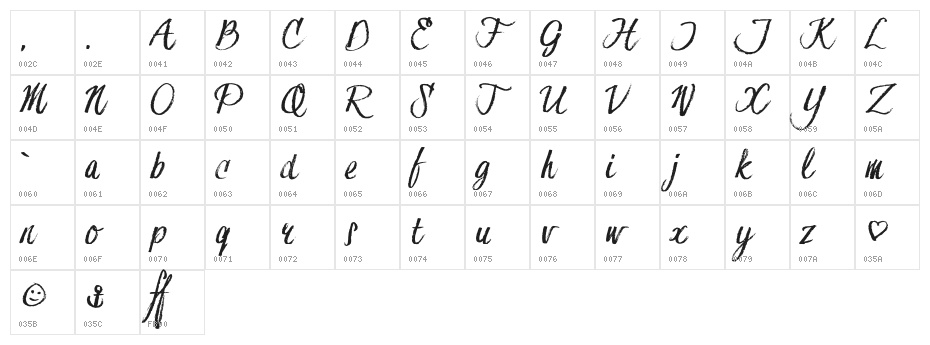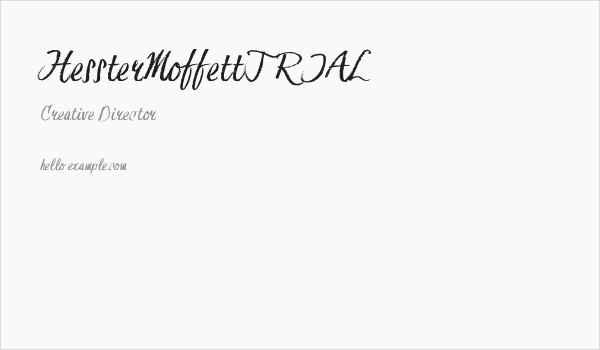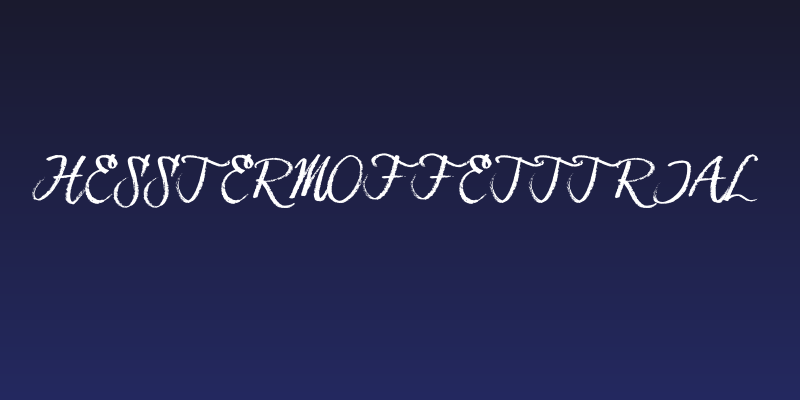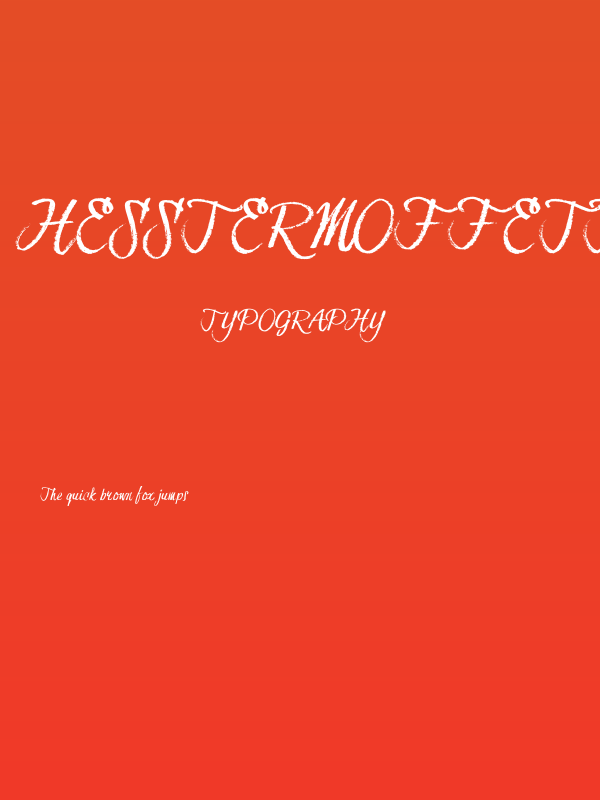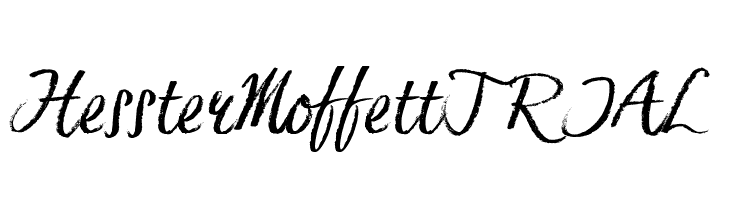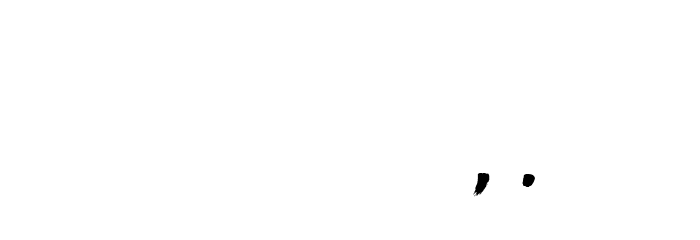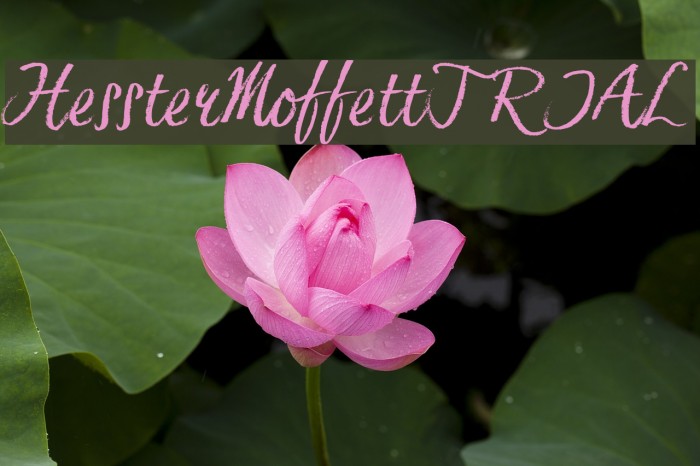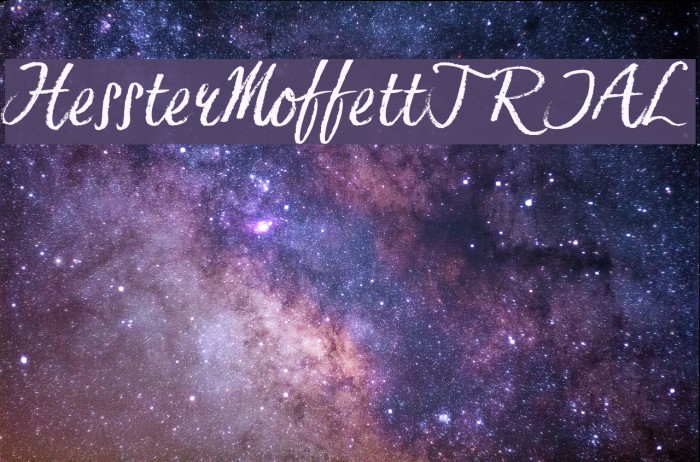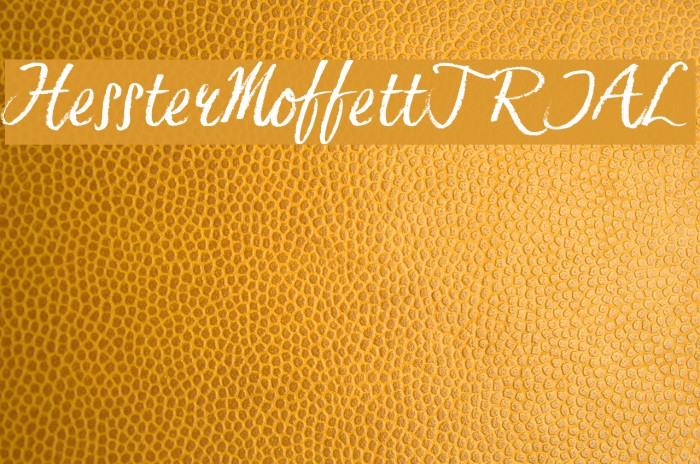
HessterMoffettTRIAL Font
HessterMoffettTRIAL Description
This font features a dynamic and expressive script style, characterized by its fluid, brush-like strokes. The letters exhibit a natural, hand-drawn appearance with varying thickness, giving it a lively and artistic feel. The uppercase letters are elegantly curved, while the lowercase letters maintain a consistent flow, enhancing readability. The texture of the strokes suggests a sense of movement and energy, making it suitable for creative and informal applications. The font's unique style is ideal for projects that require a personal touch, such as invitations, greeting cards, or artistic branding.
| Use Case | Logos, Headlines, Artistic projects |
| Proposed Projects | Ideal for invitations, greeting cards, artistic branding, and creative projects. |